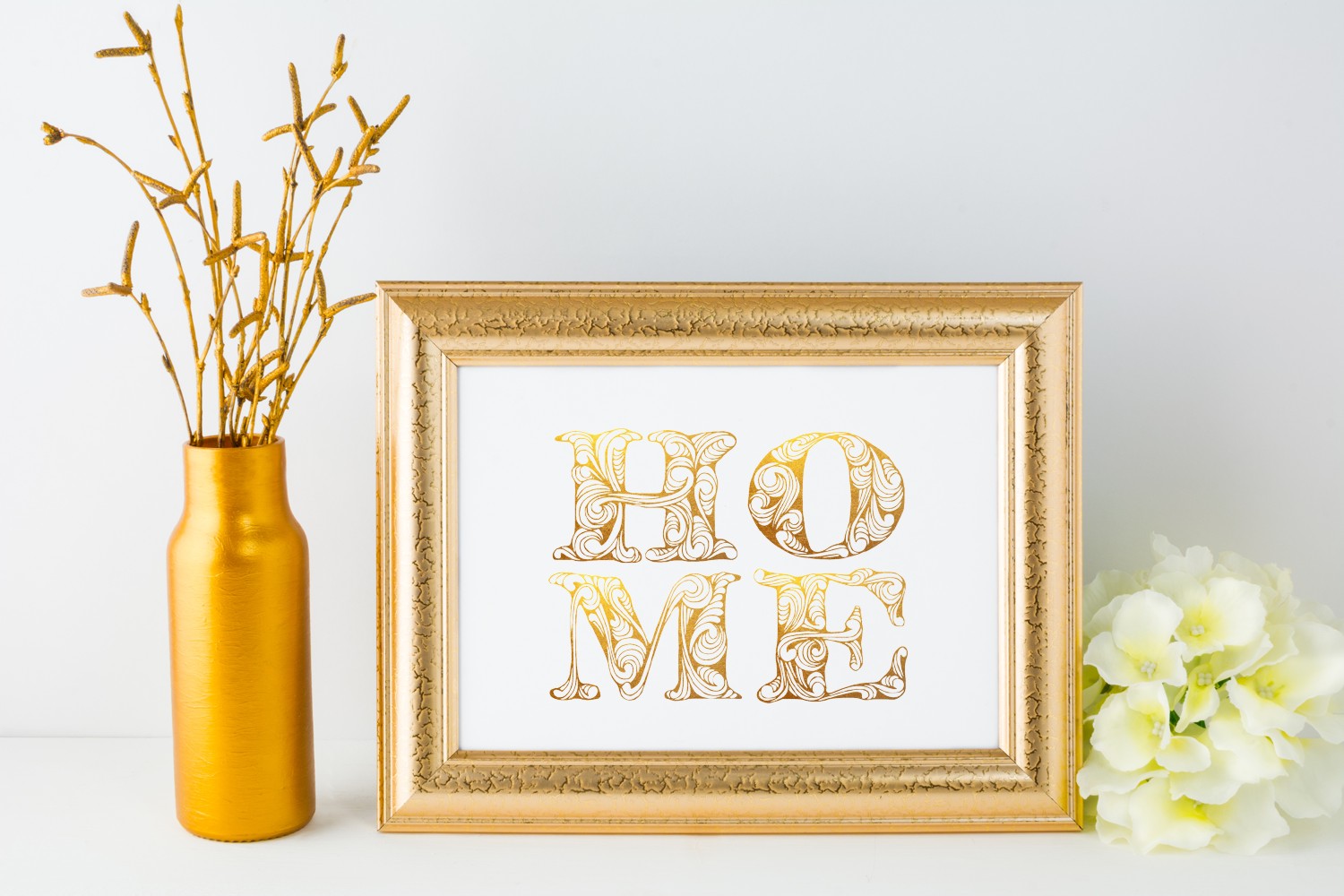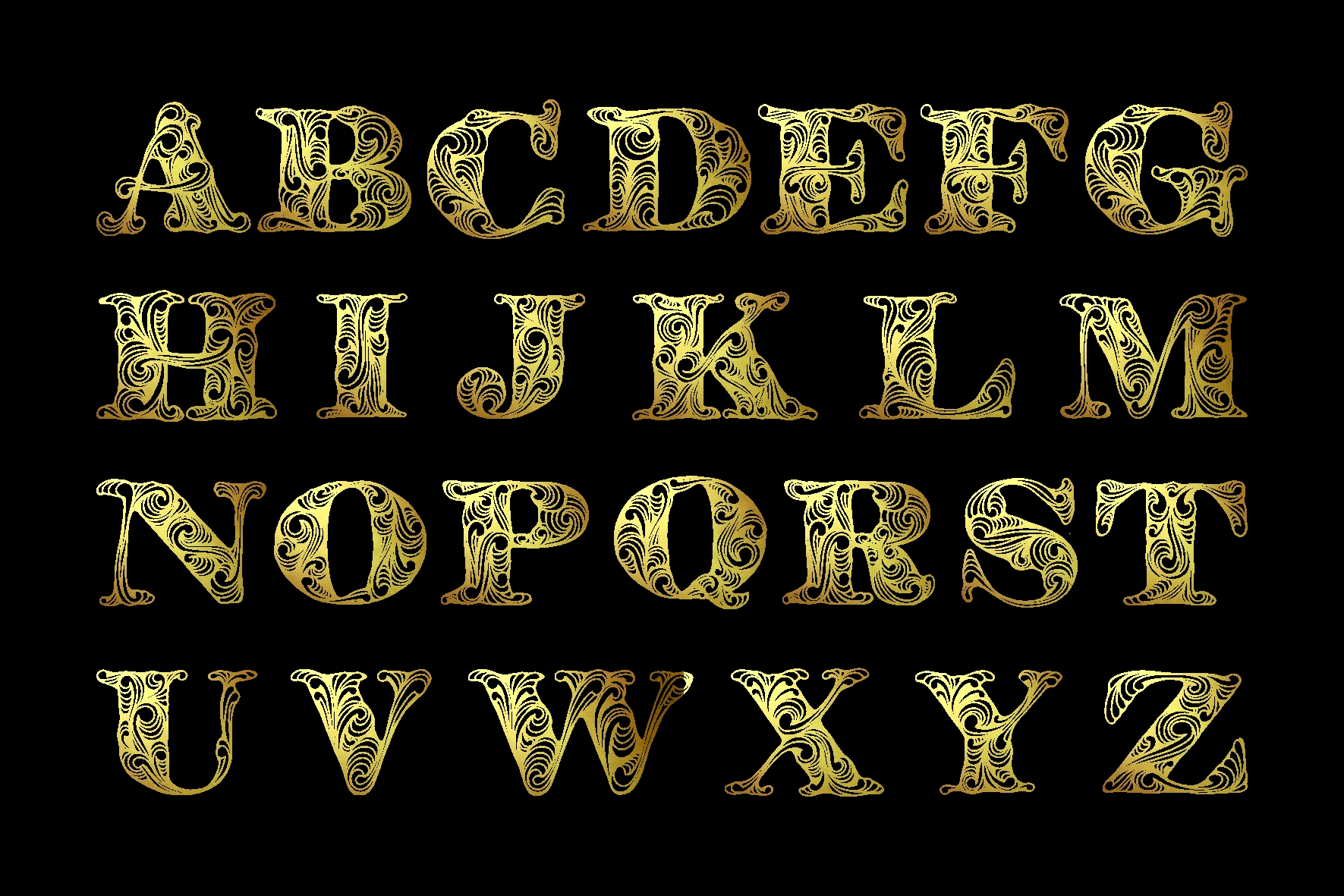
Introduction to Kahir Font
Kahir is a hand drawn decorative fonts that is great for initials, monogram embroidery and adding decorative letters to designs such as menus, invites, shirts, etc.
Key Features of Kahir Font
Why Choose Kahir Font?
Kahir Font offers exceptional quality and versatility, making it a valuable addition to your design toolkit. Whether you’re creating for personal projects or commercial use, Kahir Font delivers professional results.